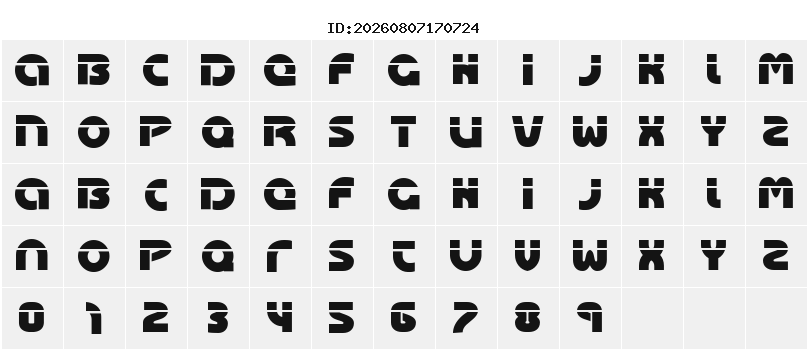
Oasis Preview
• Font Name: Oasis
• Full Font Name: Oasis
About Oasis.ttf
Oasis.ttf is a modern, elegant sans-serif font designed for ultimate readability and visual harmony. Perfect for branding, headlines, web design, and print materials.